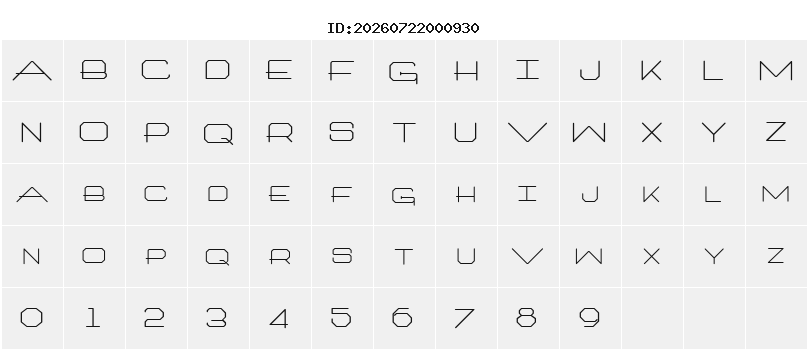
About FZ JAZZY 27.ttf
FZ JAZZY 27.ttf is a modern, elegant sans-serif font designed for ultimate readability and visual harmony. Perfect for branding, headlines, web design, and print materials.